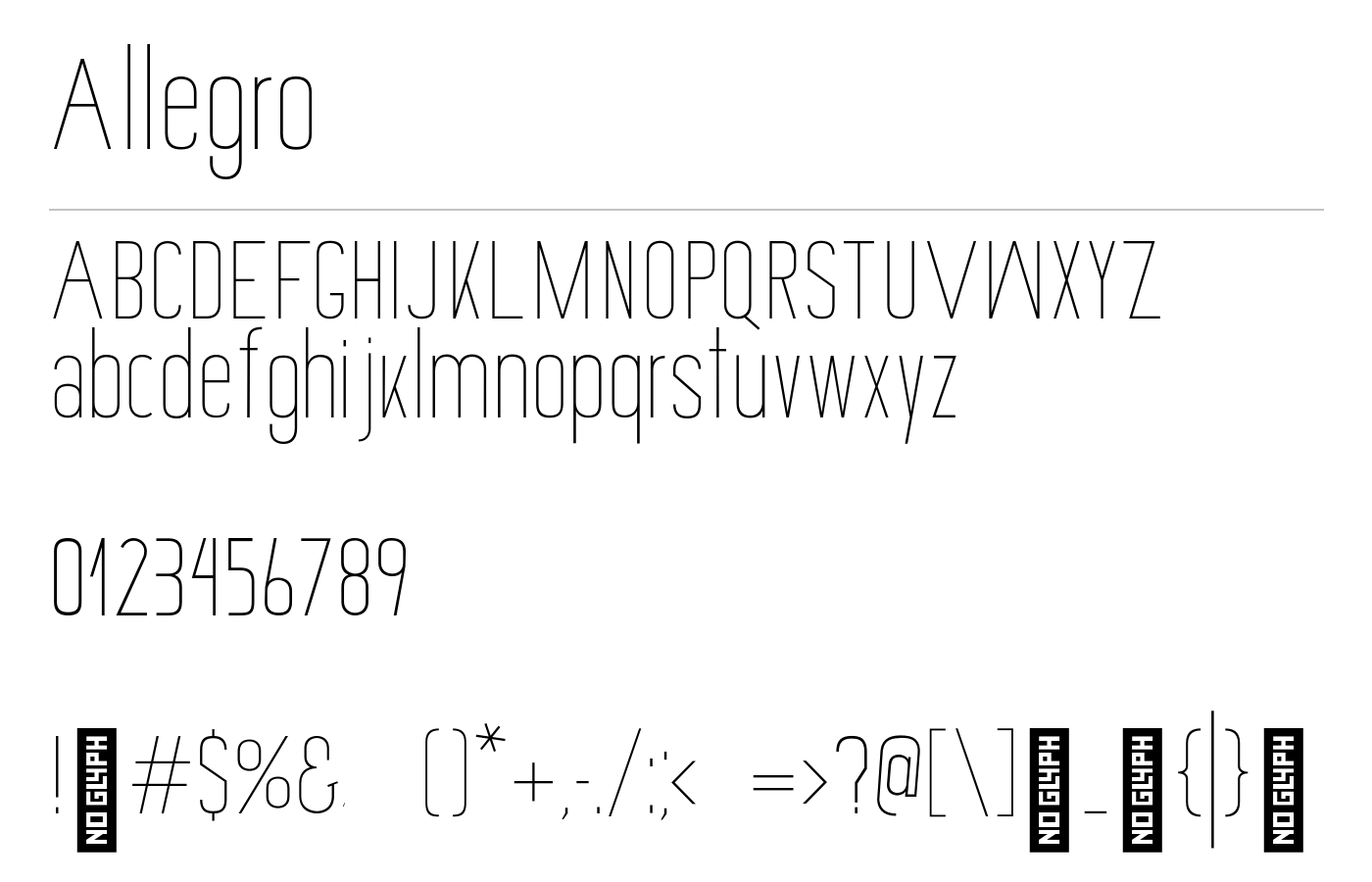
Allegro is a sleek, ultra-thin sans serif font with a narrow width and tall x-height that creates a refined, modern look. Its delicate strokes and minimal contrast make it ideal for elegant, contemporary designs where clean, airy typography is desired. This font works best in headlines, logos, and editorial layouts that seek a sophisticated yet understated style.
Allegro Font
About Allegro Font